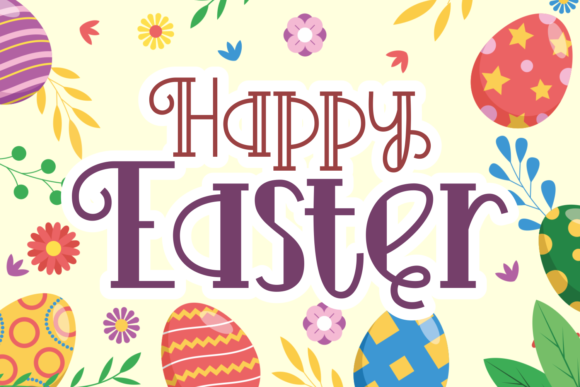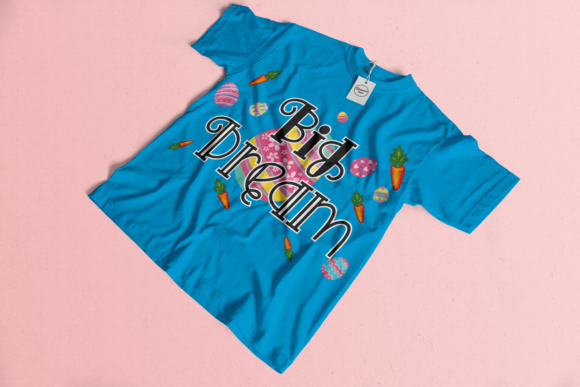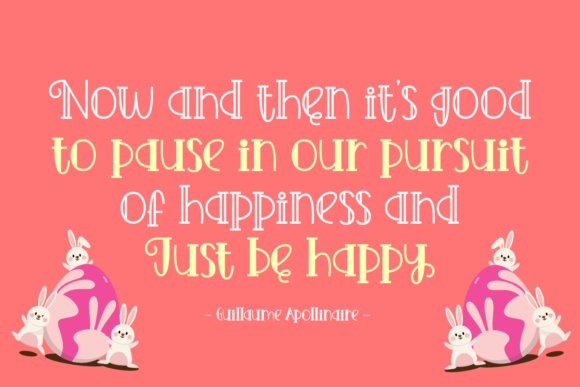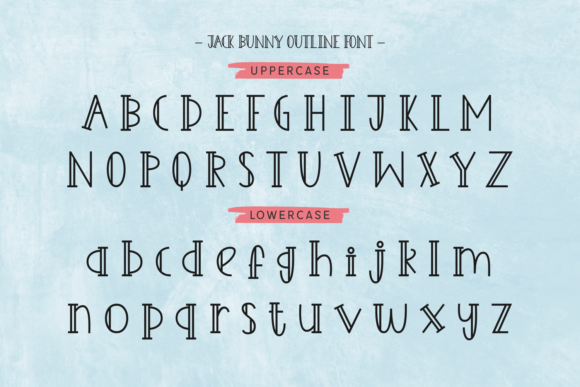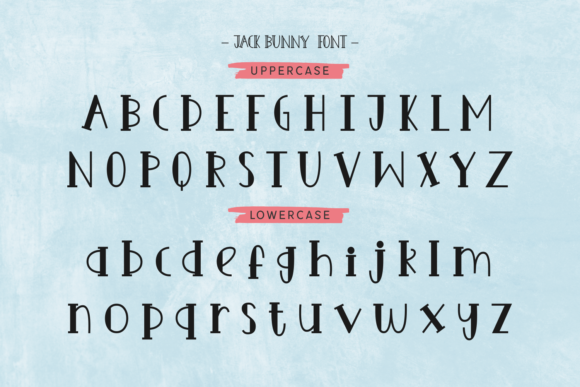
Introduction to Jack Bunny Font
Remember the thrill of designing a birthday card for a little one? The excitement of bringing their imagination to life, and the joy of seeing their face light up when they receive it? That’s what Jack Bunny Font is all about – spreading happiness and creativity through beautiful typography.
This delightful duo-style serif font is perfect for designers looking to add a playful touch to their projects. With its inviting and lively feel, Jack Bunny Font is ideal for kids’ designs, storybooks, invitations, birthday banners, posters, or anything that requires a dash of whimsy. Whether you’re working on a free download or a high-quality design resource, this font is sure to bring a smile to your face and a sparkle to your creative project.
Key Features of Jack Bunny Font
- Unique and playful design, ideal for creative projects and kids’ content.
- High-quality font with a transparent background, perfect for overlaying on images or videos.
- Perfect for use in digital designs, print materials, and web graphics, thanks to its versatility and high-quality design.
Honest Review: Jack Bunny Font
As a designer, I’m always on the lookout for high-quality fonts to elevate my creative projects. The Jack Bunny Font is a recent discovery that caught my attention, and I’m excited to share my honest review.
- ✨ Unique and playful design style that adds a touch of whimsy to any project.
- ✨ High-quality design that looks great on both digital and print materials.
- ✨ Transparent background, making it easy to use in various design scenarios.
- ⚠️ Limited character set, which may not be ideal for longer texts or professional publications.
- ⚠️ Not suitable for formal or corporate designs, as it’s more geared towards creative and playful projects.
Overall, the Jack Bunny Font is a great design resource for designers looking for a unique and playful font to add some personality to their creative projects. While it may have some limitations, its high-quality design and free download make it a worthwhile addition to any designer’s toolkit.
How to Use Jack Bunny Font
Tips and Use Cases
Some tips for getting the most out of the Jack Bunny Font include using it in a playful or whimsical design, and combining it with other creative resources to add visual interest. Common use cases include logos, social media graphics, and children’s book illustrations.
4. Funky Monkey Font
Funky Monkey Font is a fun and quirky font that is perfect for creative projects such as advertisements, cartoons, and children’s books. It has a transparent background and a lively design that makes it perfect for designers who want to add a touch of humor to their designs. Compared to Jack Bunny Font, Funky Monkey Font is more energetic and playful. It is available for free download and is a great resource for designers who want a fun and engaging font
Yes, the Jack Bunny Font has a transparent background, making it easy to use in designs with complex backgrounds. The font’s transparent background allows for seamless integration with other design elements, ensuring a professional and polished look.